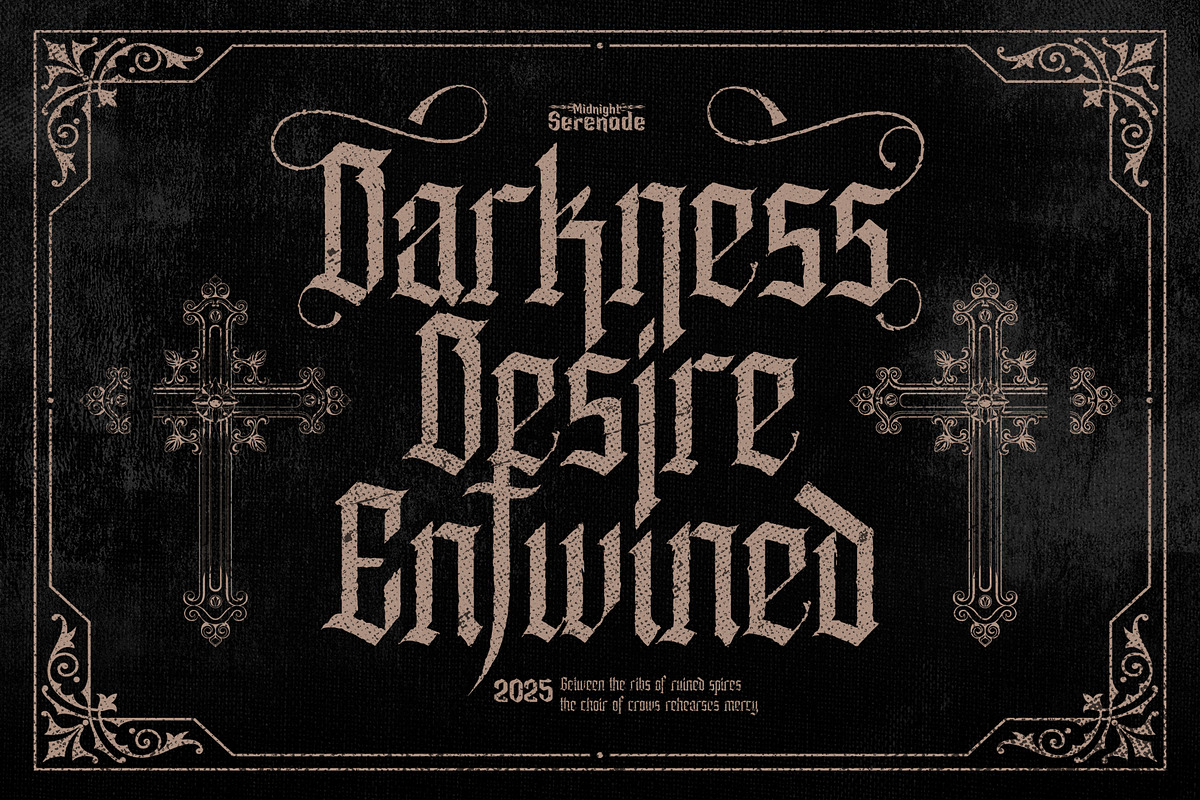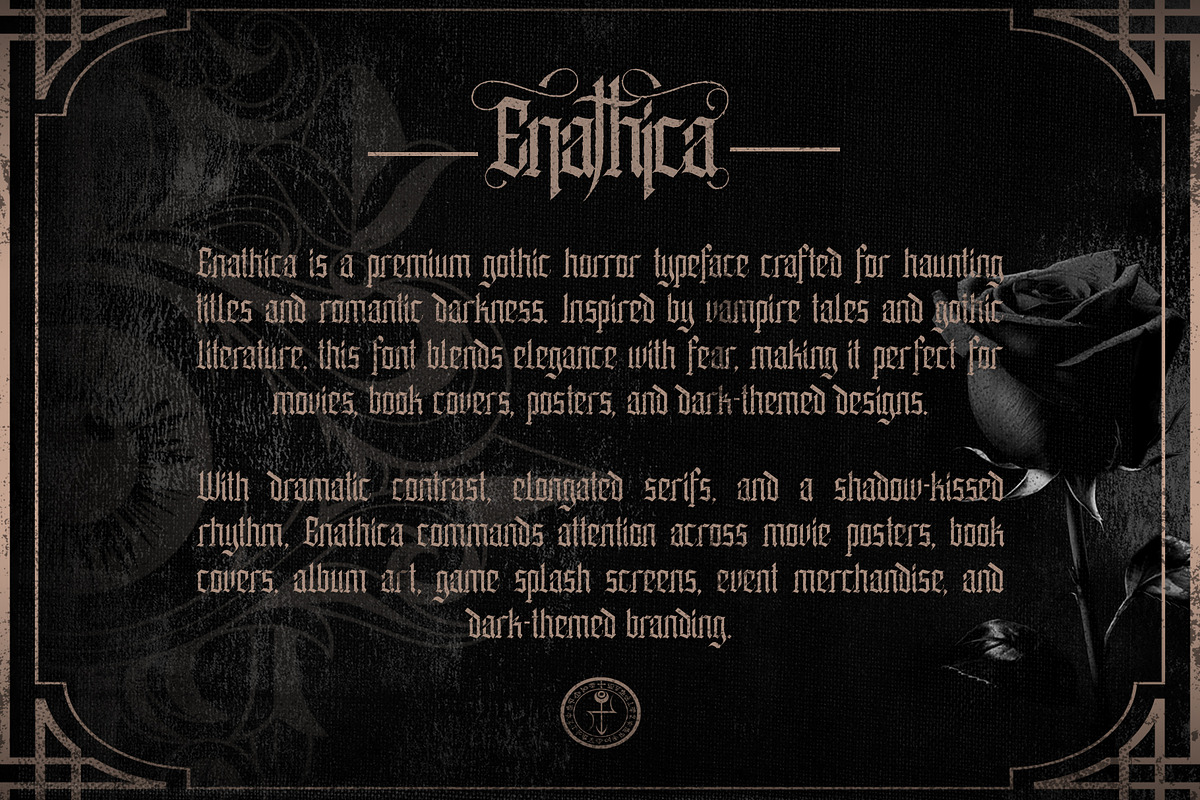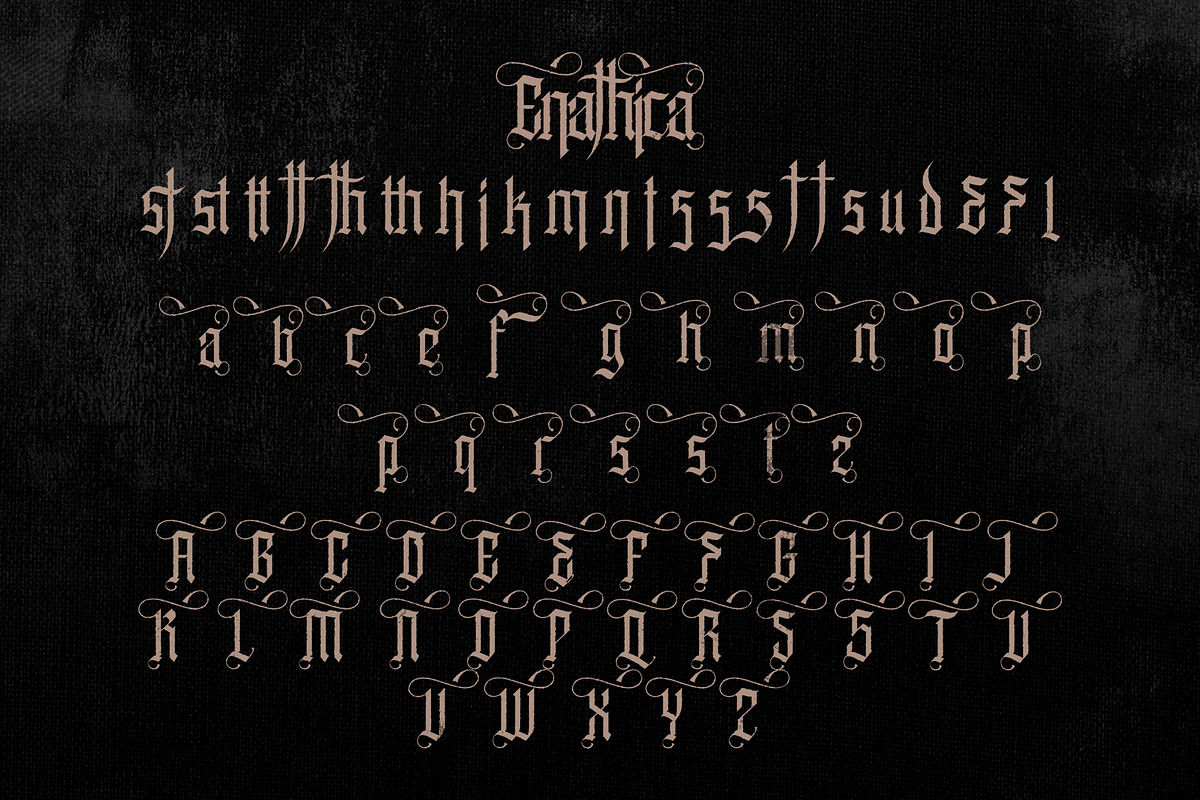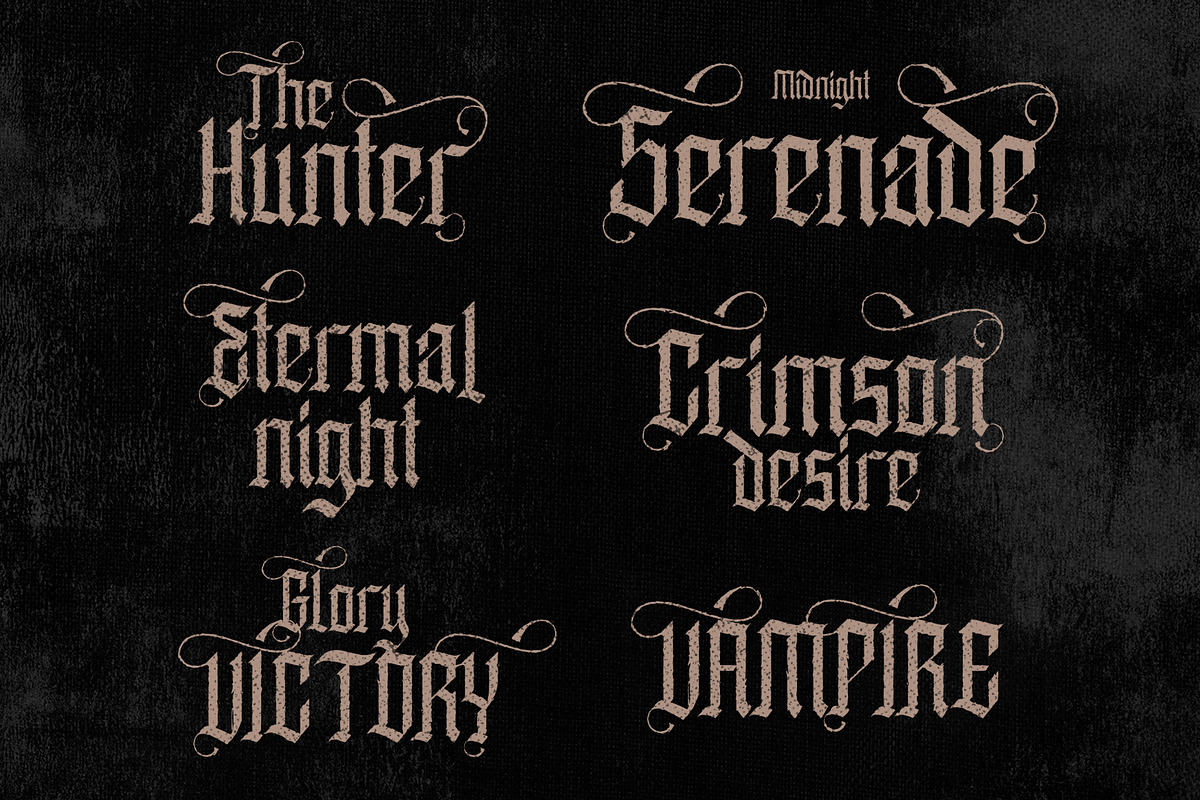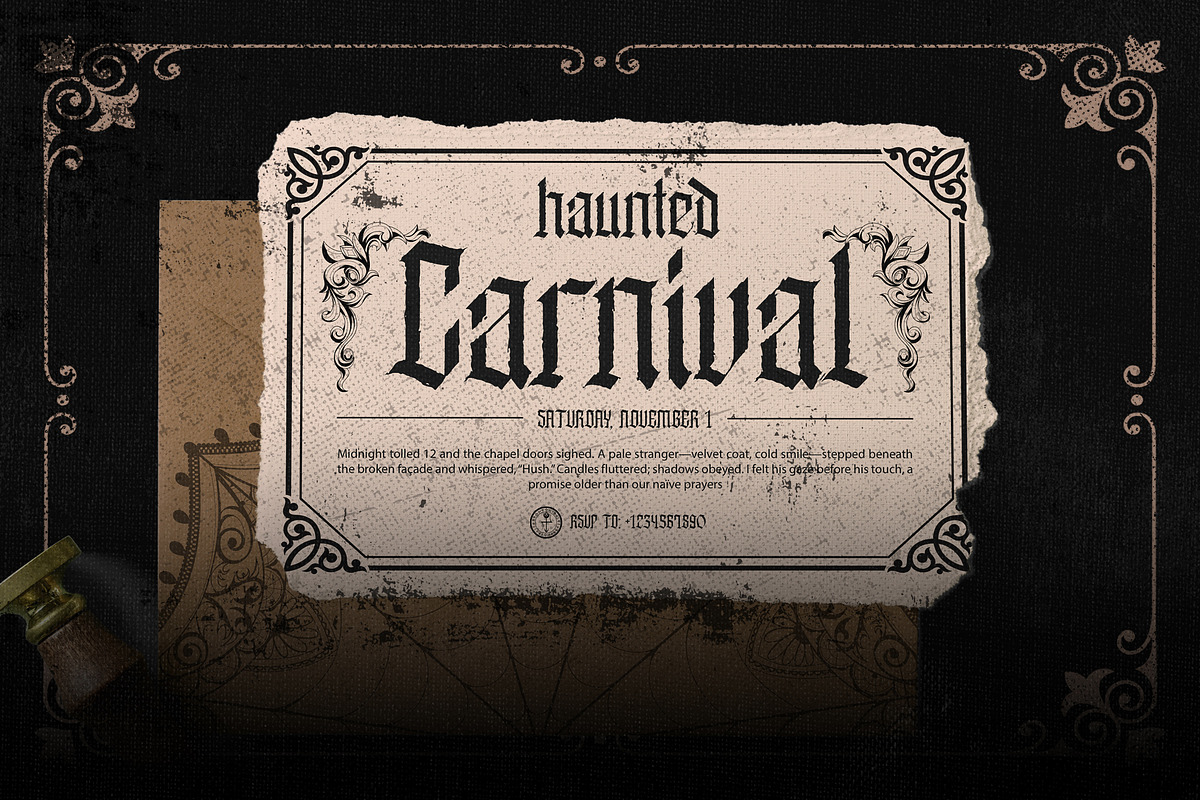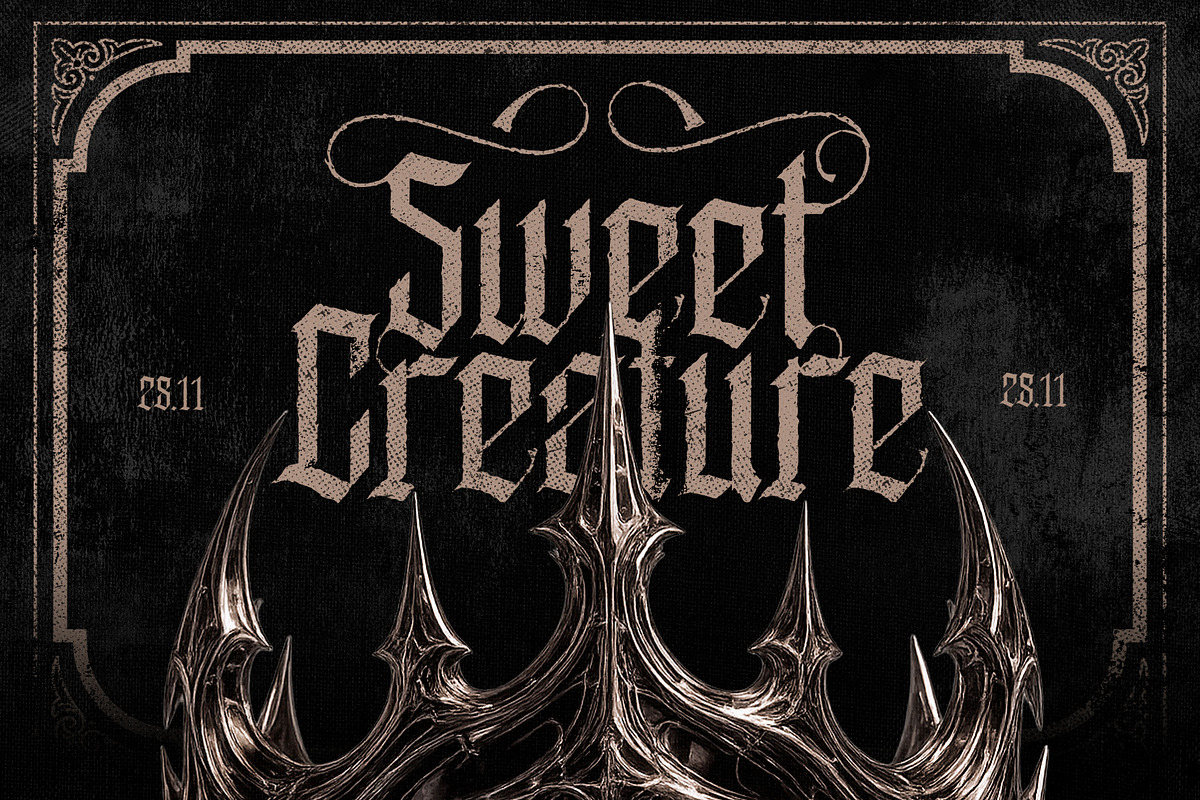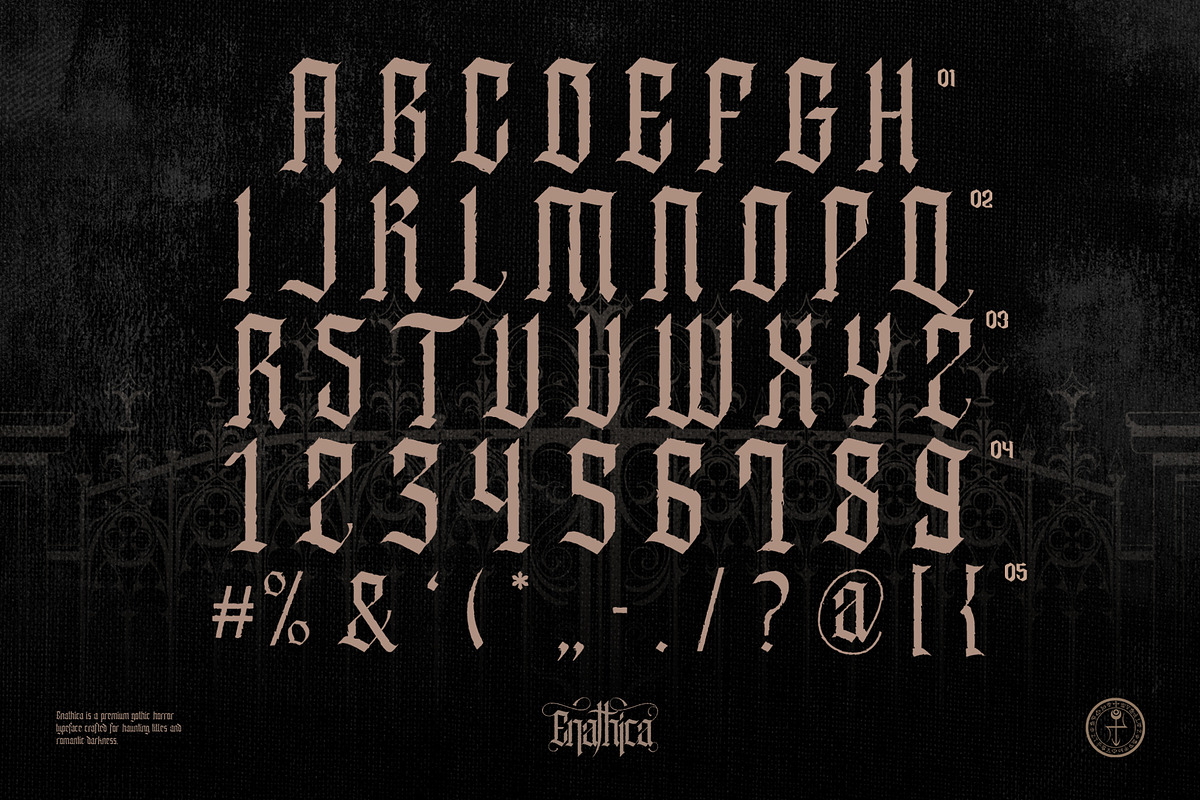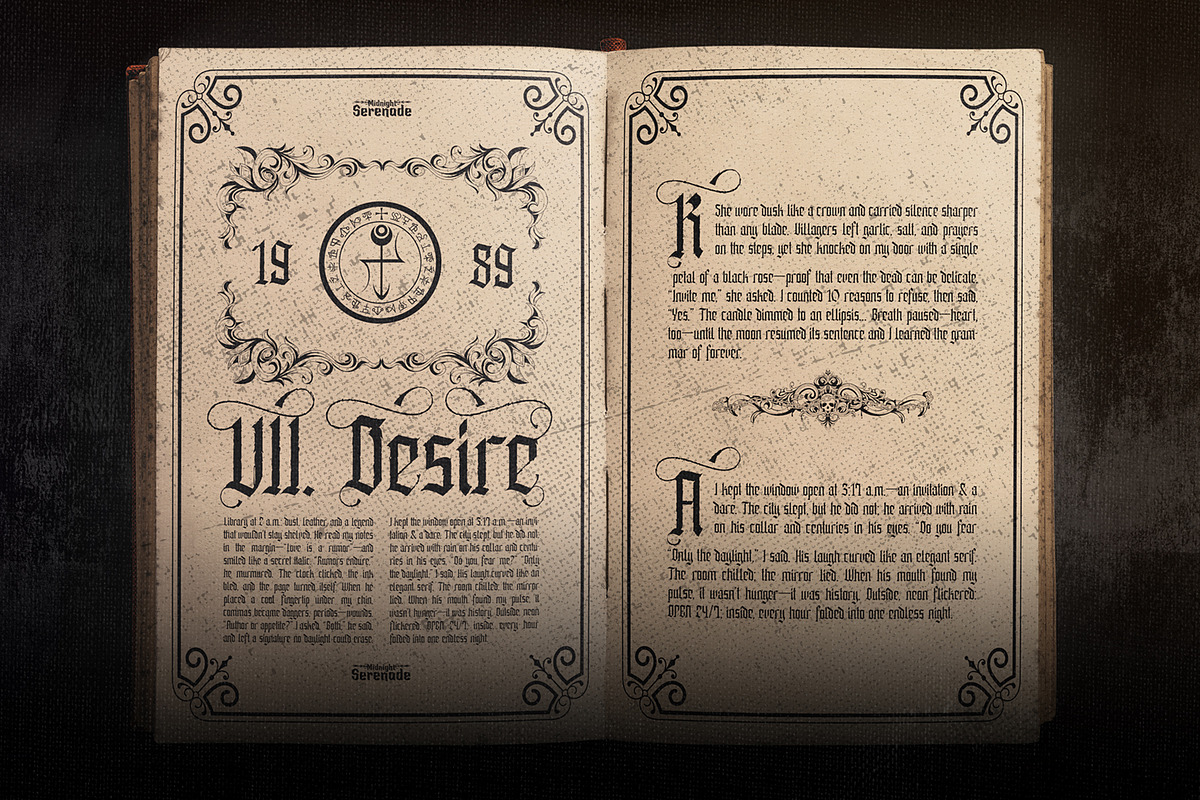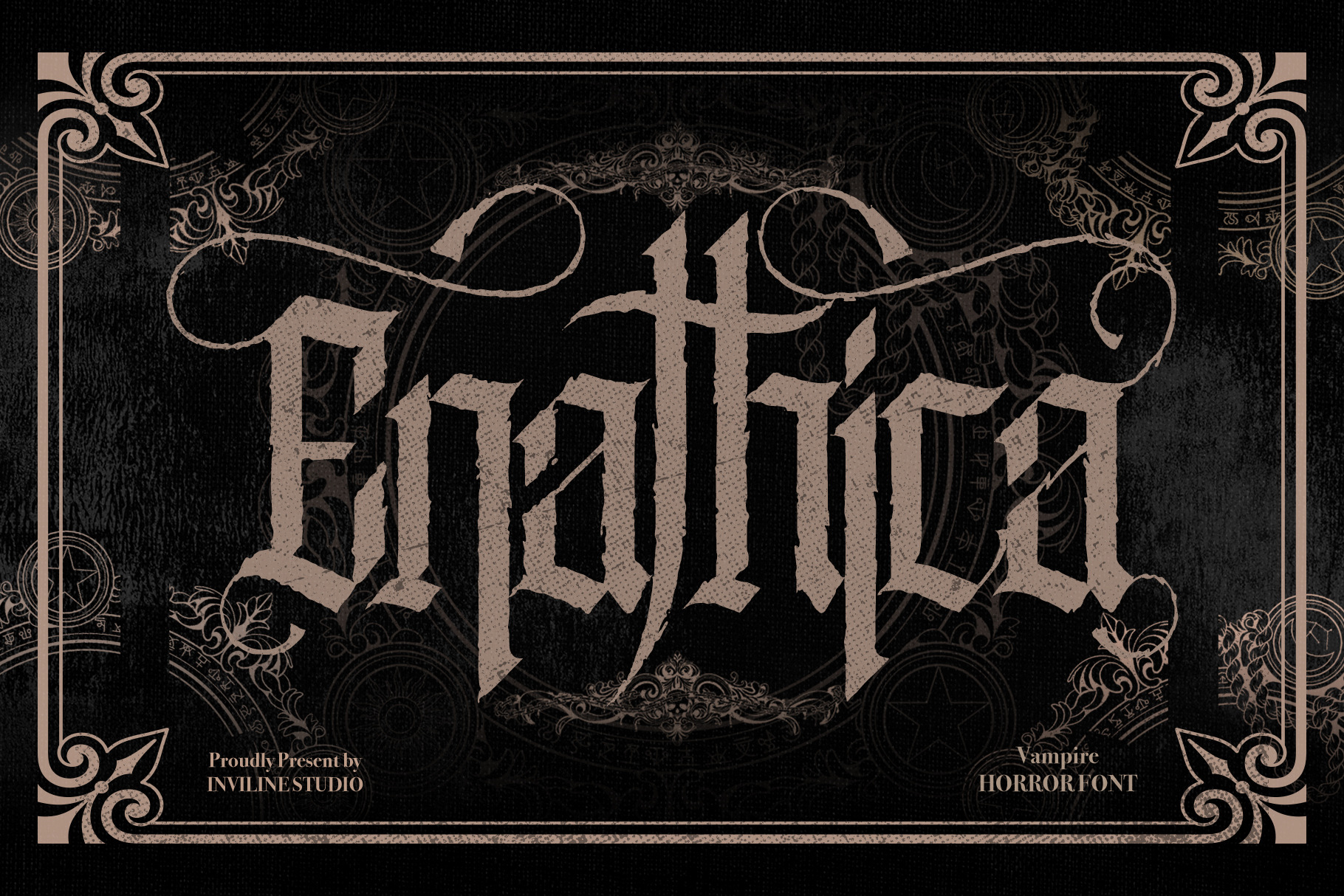
Enathica - Vampire Horror Font
Enathica is a dramatic gothic horror typeface crafted for haunting titles and romantic darkness. Inspired by vampire folklore, cathedral architecture, and classic gothic literature, this font blends elegance with menace creating a powerful visual presence that feels both refined and terrifying.
With sharp blackletter structures, elongated serifs, and ornamental swashes, Enathica carries a shadow-kissed rhythm that commands attention instantly. The high-contrast strokes and medieval influence give it a timeless authority, while the subtle decorative curves add a touch of dark romance.
- Full Uppercase & Lowercase
- Extended Alternates & Ligatures
- Ornamental Swashes & Gothic Terminals
- Horror Movie Posters
- Vampire & Gothic Book Titles
- Metal & Gothic Band Merch
- Tattoo & Occult Branding
- Halloween Promotions
- Editorial Titles & Headlines
- Witchcraft, Vampire, or Ghost-Themed Designs
- Blackletter Calligraphy Projects